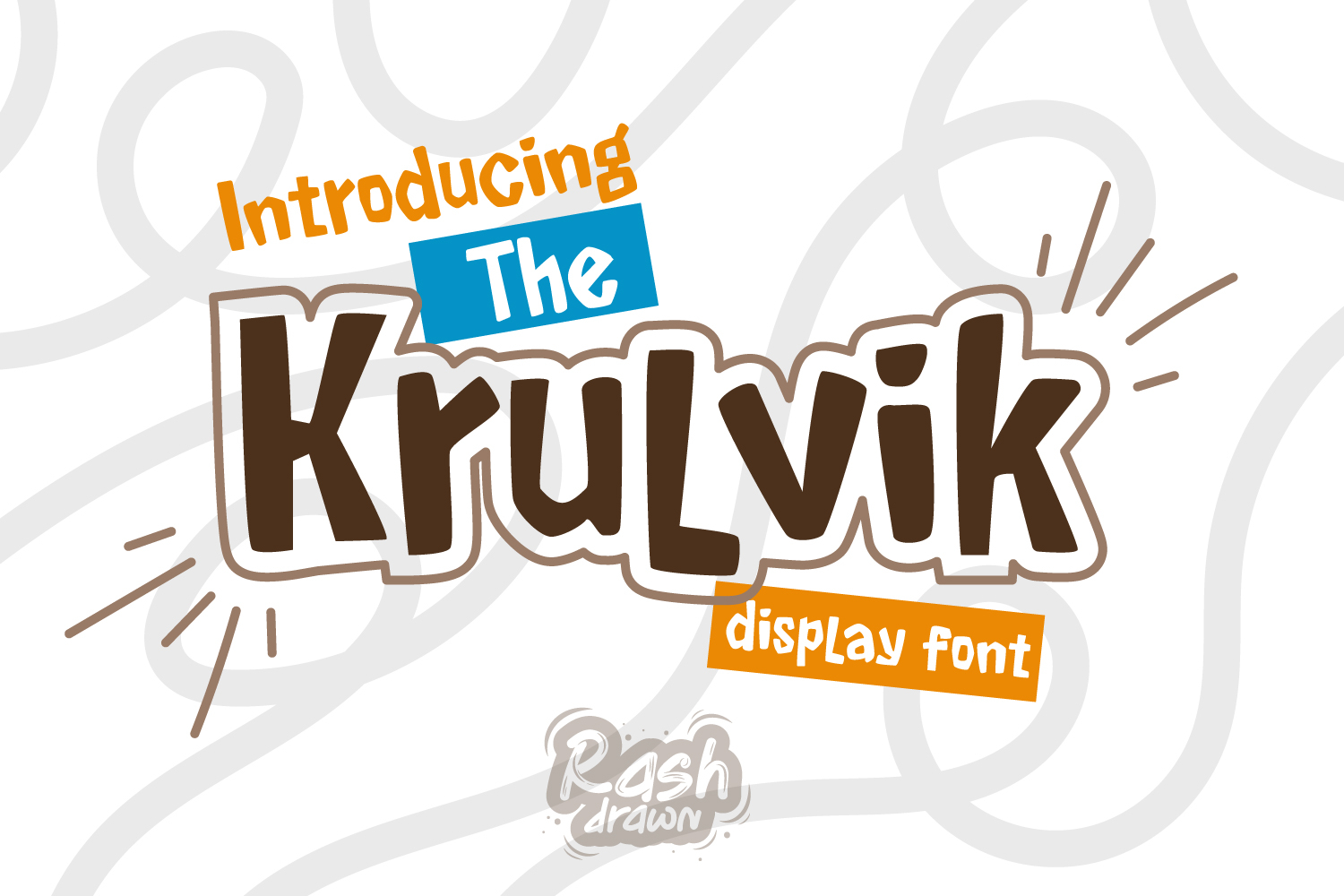
The Krulvik
Introducing Over Thinking, a modern display typeface take on a thick line style. It has a unique shape on selective characters, that’s sure to make your designs stand out.
The Krulvik